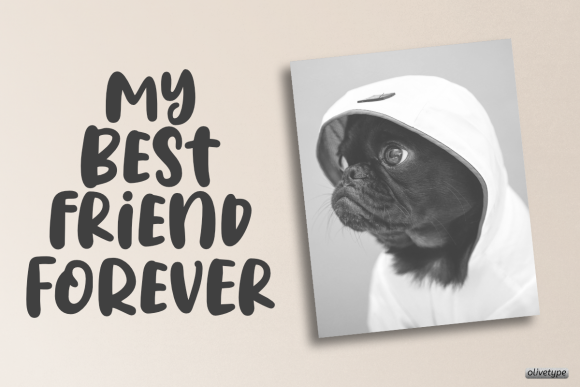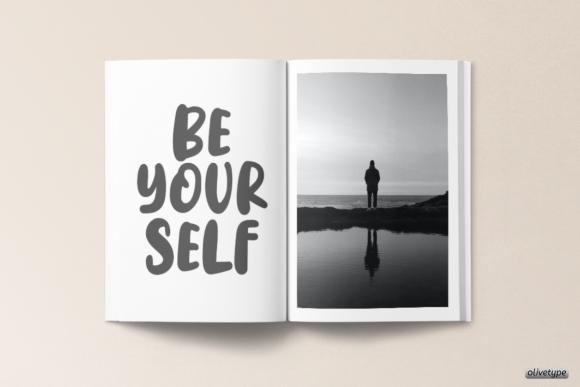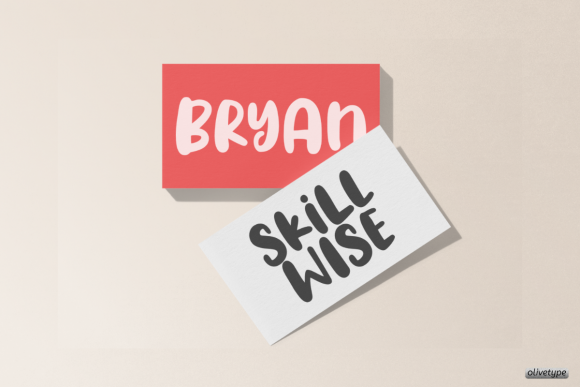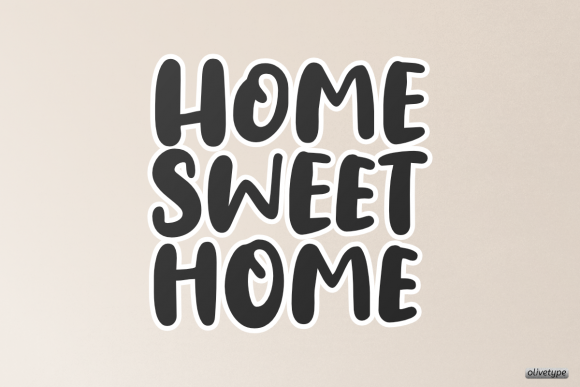
Introducing Always Believe Font: Elevate Your Designs with a Cool and Trendy Style
Are you on the hunt for a font that can add a touch of personality to your designs? Look no further than the Always Believe font. This cool and trendy styled display font is perfect for designers and crafters looking to make a statement. In this article, we’ll dive into the features and benefits of Always Believe, and explore how you can use it to take your designs to the next level.
What is Always Believe Font?
Always Believe is a stylish display font that is sure to turn heads. Its unique and trendy design makes it perfect for a variety of applications, from posters and flyers to prints and digital media. The font’s bold and eye-catching style is designed to grab attention and make a lasting impression.
Key Features of Always Believe Font
- Cool and Trendy Design: Always Believe boasts a modern and stylish design that is sure to appeal to designers and crafters looking for a font that stands out from the crowd.
- Display Font: This font is specifically designed as a display font, making it perfect for use in headlines, titles, and other prominent text elements.
- High-Quality Design: Always Believe features a high-quality design with clean lines and precise curves, ensuring that your text looks sharp and professional.
How to Use Always Believe Font
Always Believe is a versatile font that can be used in a variety of ways. Here are a few ideas to get you started:
- Posters and Flyers: Use Always Believe to create eye-catching posters and flyers that grab attention and communicate your message.
- Print Designs: This font is perfect for use in print designs, including brochures, business cards, and other marketing materials.
- Digital Media: Always Believe can also be used in digital media, including social media graphics, website headers, and more.
Benefits of Using Always Believe Font
So why choose Always Believe for your designs? Here are just a few benefits of using this font:
- Stand Out from the Crowd: Always Believe is a unique and stylish font that will help your designs stand out from the crowd.
- Professional-Looking Designs: The high-quality design of Always Believe ensures that your text looks professional and polished.
- Endless Possibilities: With its versatility and ease of use, Always Believe offers endless possibilities for designers and crafters.
Tips for Getting the Most Out of Always Believe Font
Here are a few tips for getting the most out of Always Believe:
- Experiment with Different Sizes: Always Believe looks great in a variety of sizes, so don’t be afraid to experiment to find the perfect size for your design.
- Pair with Other Fonts: This font pairs well with a variety of other fonts, so try combining it with other styles to create a unique look.
- Use in Combination with Images: Always Believe looks great in combination with images, so try using it to add text to your photos and graphics.
Always Believe is a cool and trendy styled display font that is perfect for designers and crafters looking to elevate their designs. With its unique and stylish design, high-quality construction, and ease of use, this font offers endless possibilities for creating professional-looking designs. Whether you’re working on a poster, flyer, print, or digital media, Always Believe is sure to make a lasting impression.